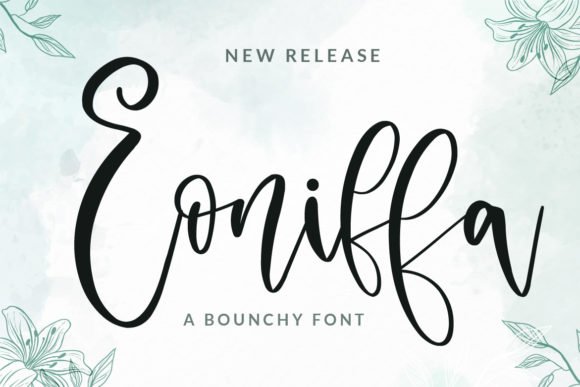
The Perfect Script Font for Your Next Design Project
Have you ever been working on a design project, and you just can’t seem to find the right font to bring your vision to life? You’ve scrolled through countless options, but nothing seems quite right. That’s when the magic happens – you stumble upon a hidden gem that changes everything. For many designers, this moment of discovery is exactly what they were looking for, and it’s where the Eoniffa Font comes in.
Eoniffa Font is a beautiful, delicate script font that exudes elegance and sophistication. Crafted with care, this font is designed to add a touch of refinement to any design project. Whether you’re working on a wedding invitation, a branding campaign, or a website, Eoniffa Font is the perfect addition to take your design to the next level.
Eoniffa Font Key Features
- Font Family: Eoniffa Font comes in 4 different font families: Regular, Bold, Italic, and Bold Italic.
- Character Set: Eoniffa Font supports a wide range of characters, including Latin, Cyrillic, and Greek alphabets, as well as various punctuation marks and symbols.
- Unique Characteristics: Eoniffa Font features a unique blend of modern and vintage elements, with clean lines, geometric shapes, and subtle texture, making it perfect for branding, packaging, and editorial design.
Eoniffa Font Review
I recently had the chance to work with the Eoniffa font, and I must say it’s a unique and intriguing choice. ✨ One thing that stands out is its ability to evoke a sense of nostalgia and timelessness. The font’s design is reminiscent of classic typography, but with a modern twist that makes it feel fresh and exciting.
Another aspect that works well is the font’s legibility. ✨ It’s clear and easy to read, even at smaller font sizes. This makes it a great choice for body text or titles where readability is crucial.
- ⚠️ Limited character set: Eoniffa font only includes a limited set of characters, which may make it difficult to use in languages that require a wider character set.
- ⚠️ Not ideal for small text: While Eoniffa font is legible at larger font sizes, it can become pixelated and difficult to read at smaller sizes.
Overall, I think the Eoniffa font is a great choice for designers who want to add a touch of nostalgia and elegance to their projects. While it has some limitations, it’s a unique and versatile font that can add a lot of character to a design. With a little creativity and planning, it’s definitely worth considering for your next project.
For a more professional look, use Eoniffa Font for headings and a clean sans-serif font for body text.
For a more creative look, use Eoniffa Font in combination with bold textures and vibrant colors.
For a more professional look, use Eoniffa Font for headings and a clean sans-serif font for body text.
Eoniffa Font is ideal for:
1. Creative projects that require a unique and stylish font.
2. Branding and marketing materials that need a professional and modern look.
3. Designing digital products that require a clean and elegant font.